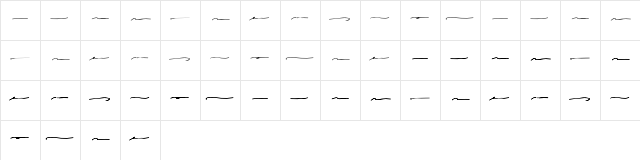
alabama swash Regular
Design Context for alabama swash Typeface
alabama swash brings a calligraphic fluidity to the page — its connecting strokes and expressive curves give it an unmistakably human quality.
Font Pairing: Combine alabama swash with a simple geometric sans for maximum contrast — the tension between flowing curves and clean structure is a classic typographic pairing.
Pro Tip: Pair alabama swash with a clean sans-serif for supporting text. The contrast between fluid script and geometric structure creates an elegant typographic hierarchy.